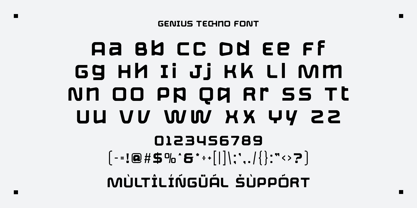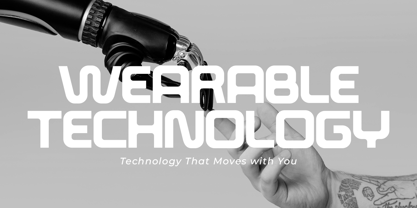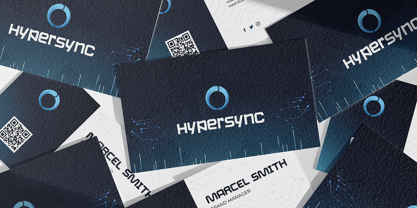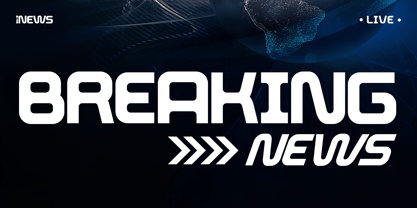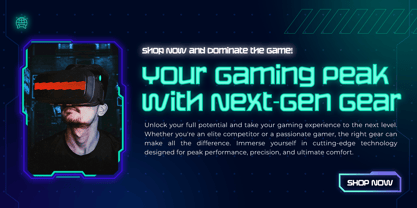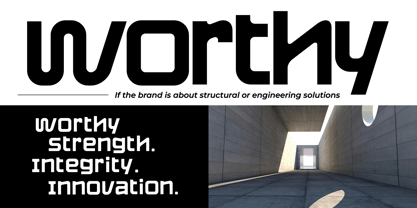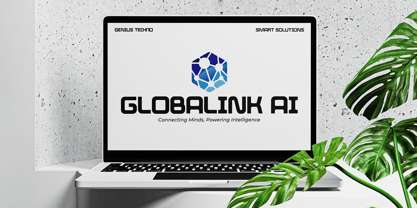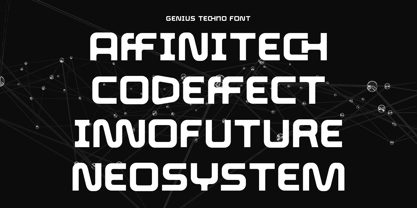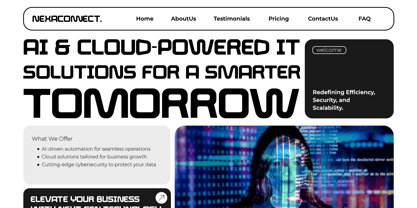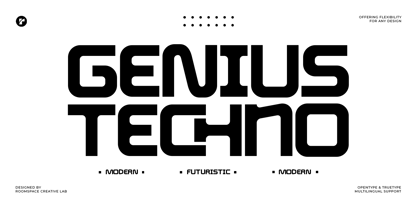
Genius Techno
by Jafar07
The Genius Techno Font Family was designed by Bakhrudin Ja'far and published by Jafar07. Genius Techno contains 2 styles and family package options.
Genius Techno is a cutting-edge modern futuristic typeface that embodies the sleek aesthetics of technology and innovation. Designed with bold geometric structures, rounded edges, and a tech-inspired look, this font is perfect for brands, UI/UX design, gaming, sci-fi projects, and futuristic branding. Inspired by the digital age, cyberpunk aesthetics, and modern AI-driven designs, Genius Techno seamlessly blends a high-tech feel with contemporary versatility. Whether you’re crafting a website, branding identity, poster, or tech-related project, this font elevates your design with its strong presence and readability.
A little from my personal design & background: My name is Bakhrudin Ja'far, I live in Malang, Indonesia. I am currently completing my degree in visual communication design and I have worked as a lettering artist and logo designer for many years. I finally started my studio called roocspace creative lab (jafar07) Studio a few months ago and with my team made my letters into typography.